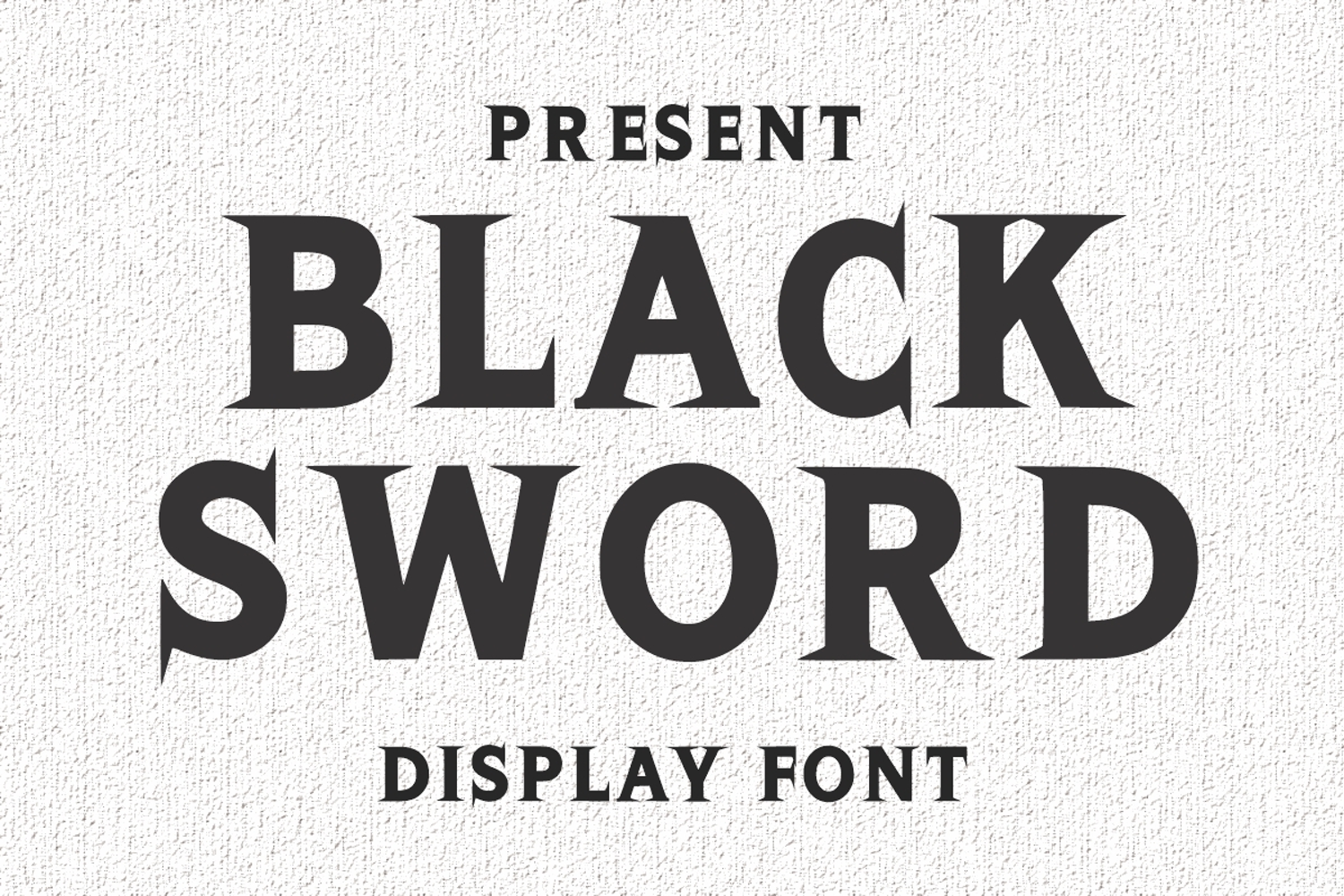
Black Sword
Black Sword is a unique font and bold display font. It features a dynamic effect and a unique charm. It is perfect for headlines, sporting events, automotive posters, school posters, text effects, templates, logos, or monogrammed designs.